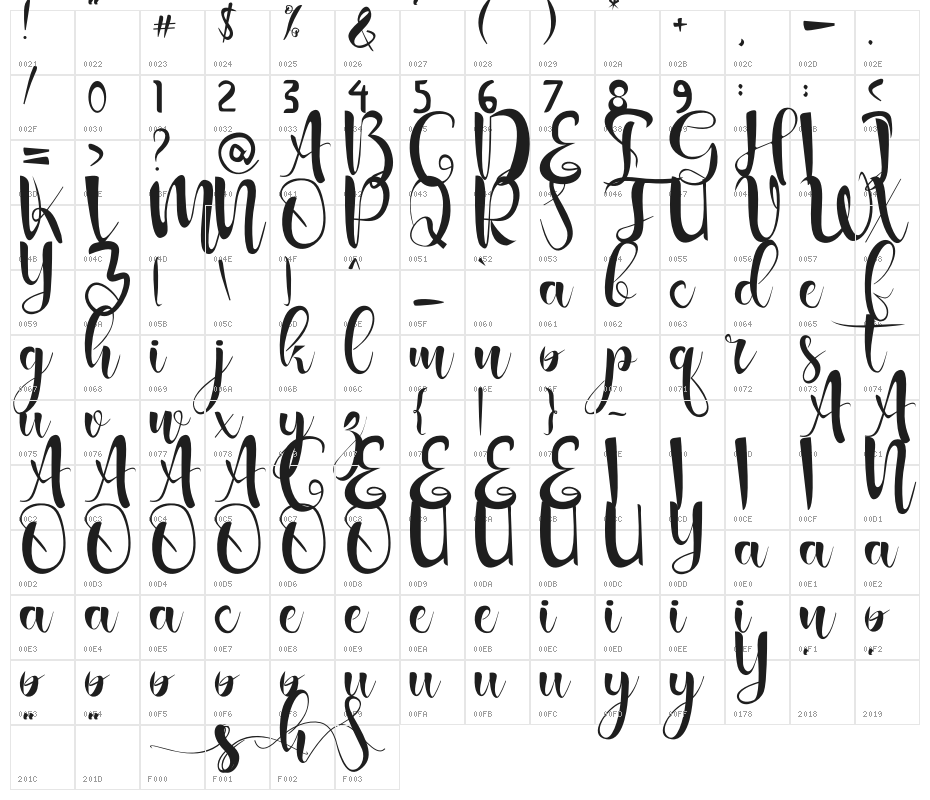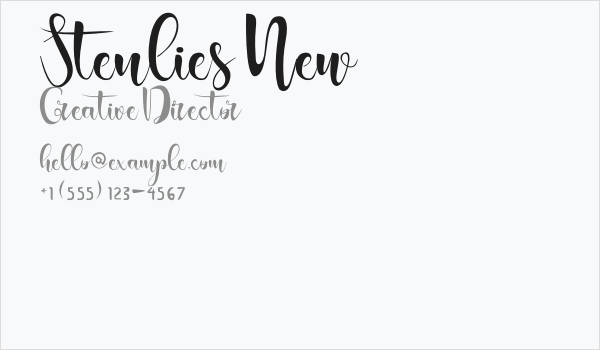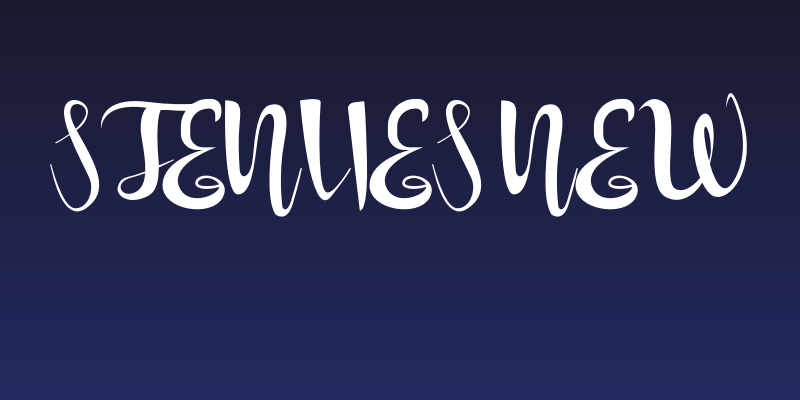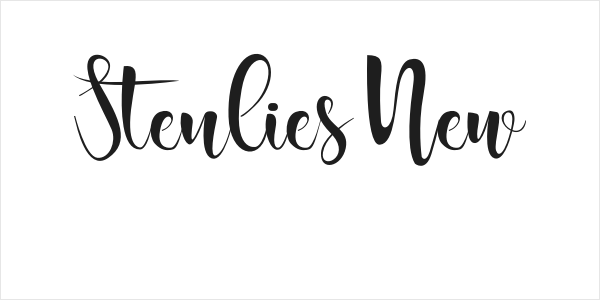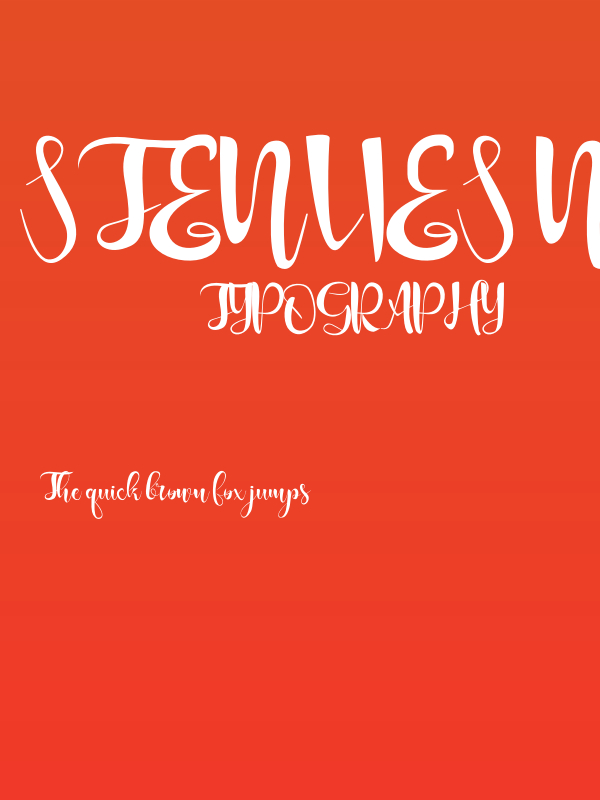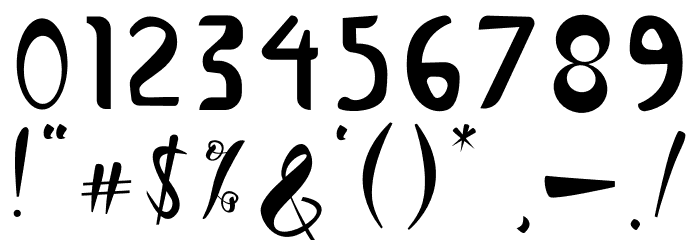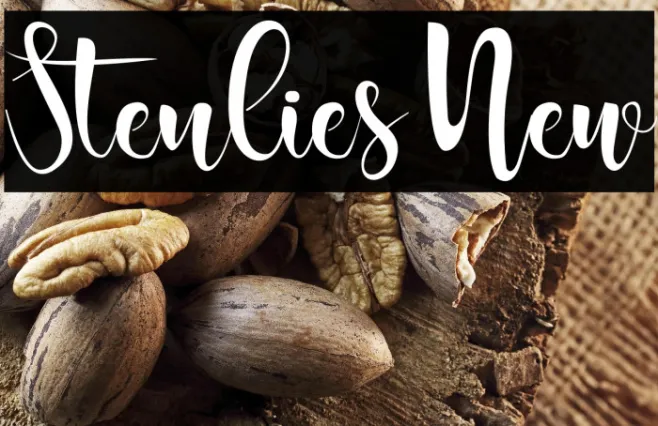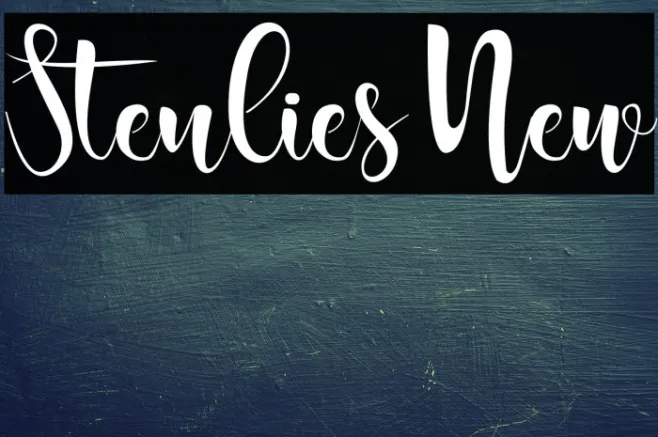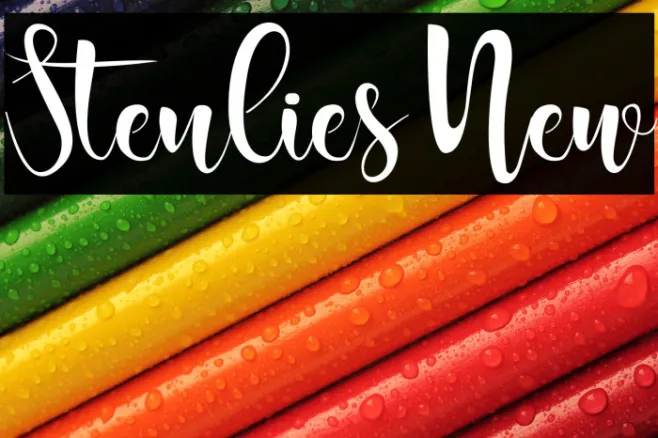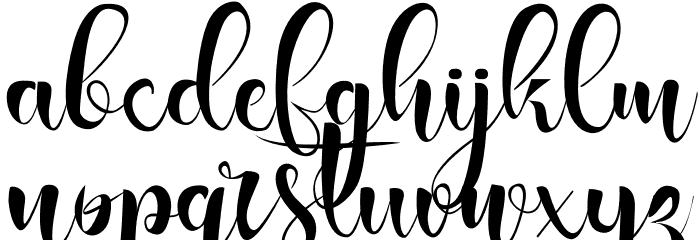
Stenlies New Font
Stenlies New Description
This font features a flowing, cursive style with a modern twist. The letters are elegantly connected, creating a sense of fluidity and movement. The uppercase letters are bold and expressive, with unique flourishes that add character and charm. The lowercase letters maintain a consistent style, with smooth curves and loops that enhance readability. The numerals are distinct and easy to read, while the special characters complement the overall design. This font's playful yet sophisticated appearance makes it suitable for a variety of creative projects.